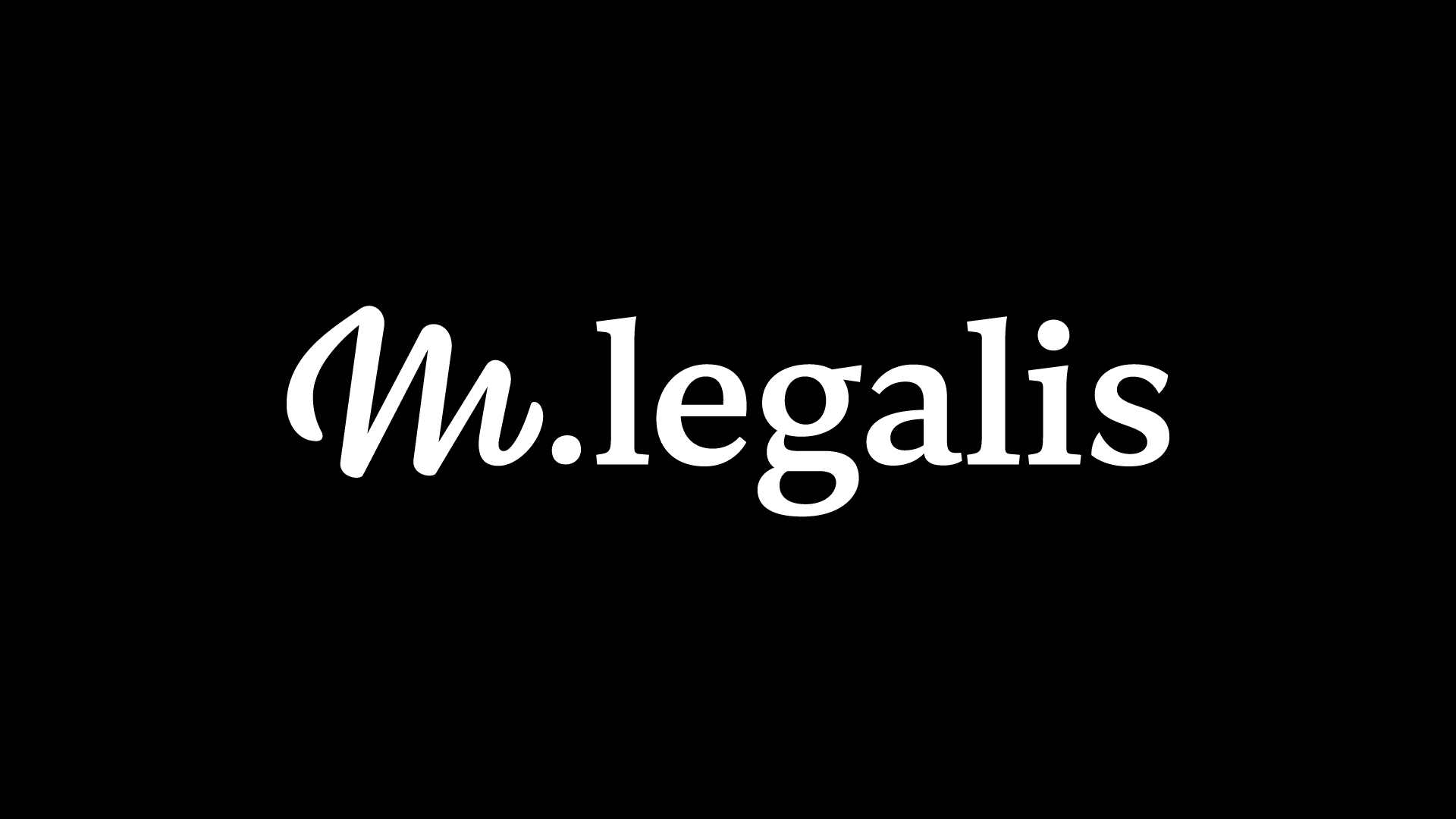
M.legalis
Logo for a Slovak law firm. The logo combines a script M with an elegant serif typeface to represent both the personal and professional approach of the office.